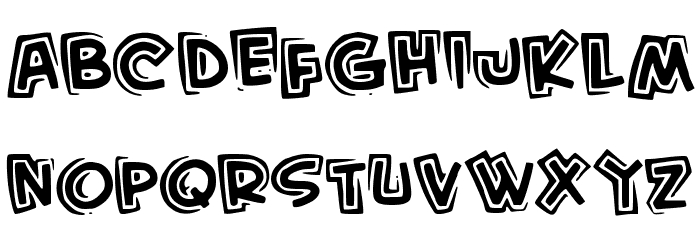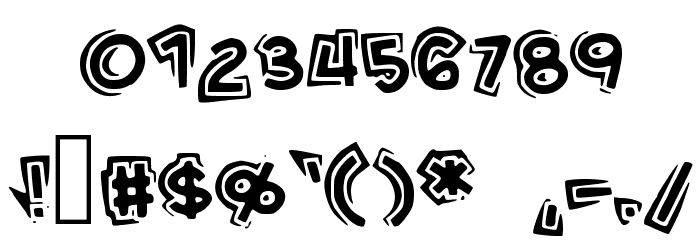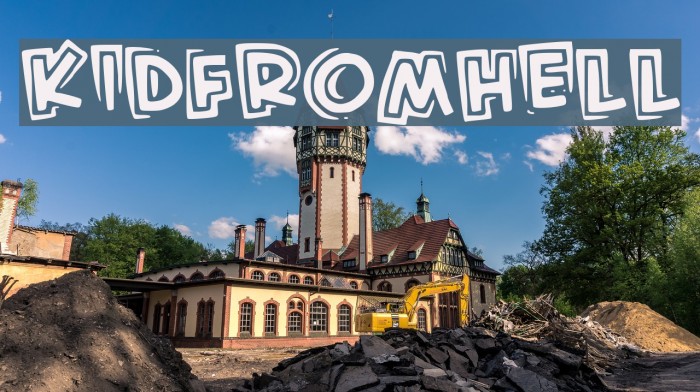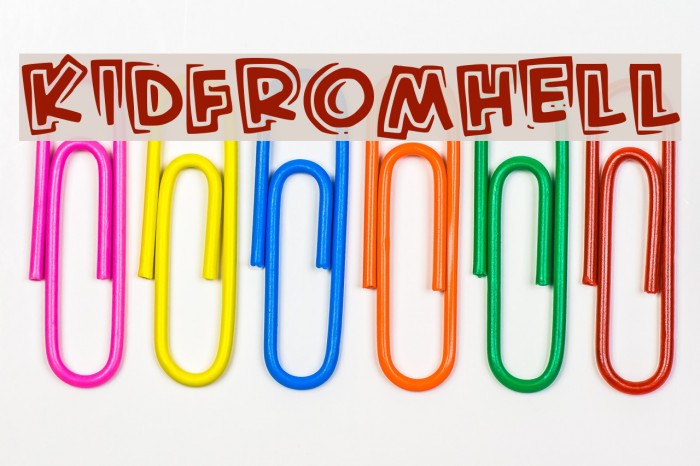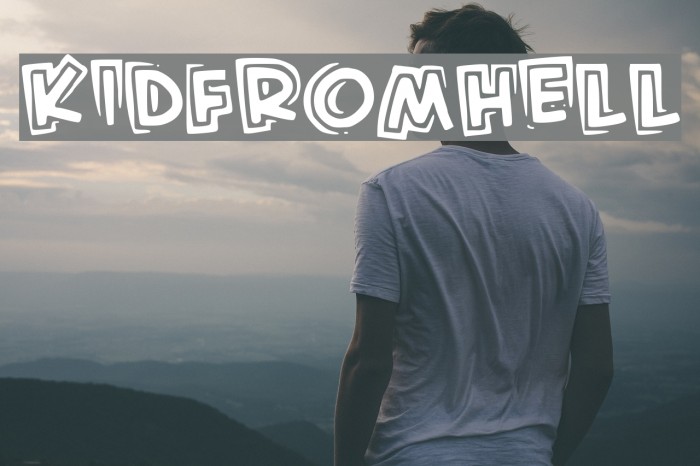
KidFromHell Font
This font features a bold, playful style with a cartoonish flair. Each character is outlined with a thick black border, giving it a striking and dynamic appearance. The letters are slightly irregular, adding to the whimsical and informal feel. The font is highly legible, with a consistent weight throughout, making it suitable for eye-catching designs. Its boldness and unique style make it perfect for projects that require a fun and energetic vibe. The numbers and special characters maintain the same playful aesthetic, ensuring a cohesive look across all text elements.
A bold, cartoonish font with thick outlines and playful character shapes.
- Proposed Projects: Ideal for children's book covers, comic strips, playful branding, and event posters.
- Overall Style: Playful, Cartoonish